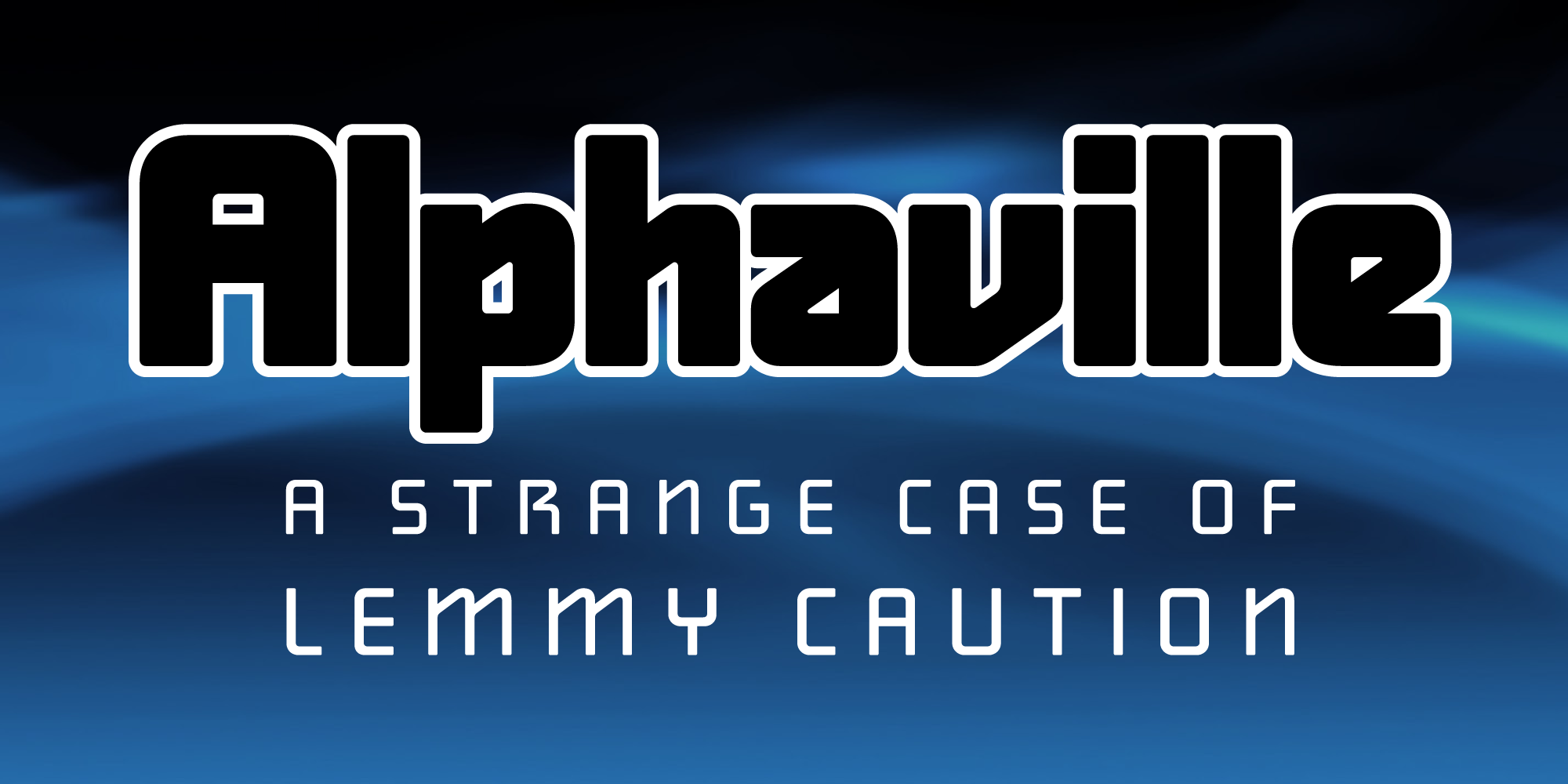
The Alphaville Font is perfectly suited for diverse creative applications including movie titles, sci-fi branding, retro-futuristic designs, gaming interfaces, tech company logos, cyberpunk-themed projects, concert posters, album covers, digital art installations, and innovative advertising campaigns. Its distinctive character makes it particularly effective for entertainment industry projects, technology startups, creative agencies, and any brand seeking to convey innovation, forward-thinking vision, and cutting-edge aesthetics in their visual communications.
What makes the Alphaville Font incredibly exciting is its unique blend of retro-futuristic inspiration and contemporary design sophistication. This typeface captures the essence of 1980s sci-fi aesthetics while incorporating modern typographic principles that ensure optimal performance across today's digital landscape. The font's captivating character emerges from its angular construction, geometric precision, and carefully crafted details that evoke a sense of technological advancement and creative innovation, making it perfect for brands seeking to establish a bold, memorable identity that resonates with modern audiences.
The Alphaville Font family encompasses multiple weights and styles designed to accommodate various creative requirements. The collection typically includes light, regular, medium, bold, and black weights, with many versions offering condensed and extended variants to provide maximum layout flexibility. Some editions may include outline versions, neon effects, and stylistic alternates that enhance the font's futuristic appeal and enable designers to create unique typographic treatments for specific project needs and brand applications.
Professional designers and creative teams consistently choose the Alphaville Font Free Download for its exceptional visual impact and technical reliability. The font features optimized spacing and kerning that ensures clear readability across different sizes and applications, while its robust construction maintains its distinctive character in both digital and print environments. The comprehensive character set includes uppercase and lowercase letters, numerals, punctuation marks, and special symbols, along with extended language support for international creative projects and global brand communications.
The Alphaville Font represents the evolution of display typography for the digital age, combining nostalgic sci-fi elements with modern design innovation. Its bold aesthetic commands attention while maintaining the versatility required for diverse creative applications. The font's remarkable adaptability allows it to work effectively in both minimalist tech contexts and complex, graphic-heavy designs, ensuring consistent brand impact across websites, mobile applications, merchandise, and environmental graphics.